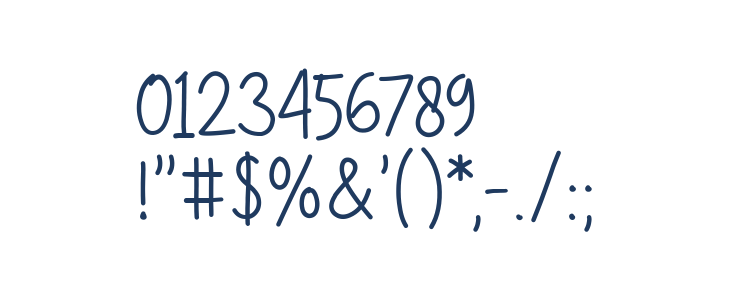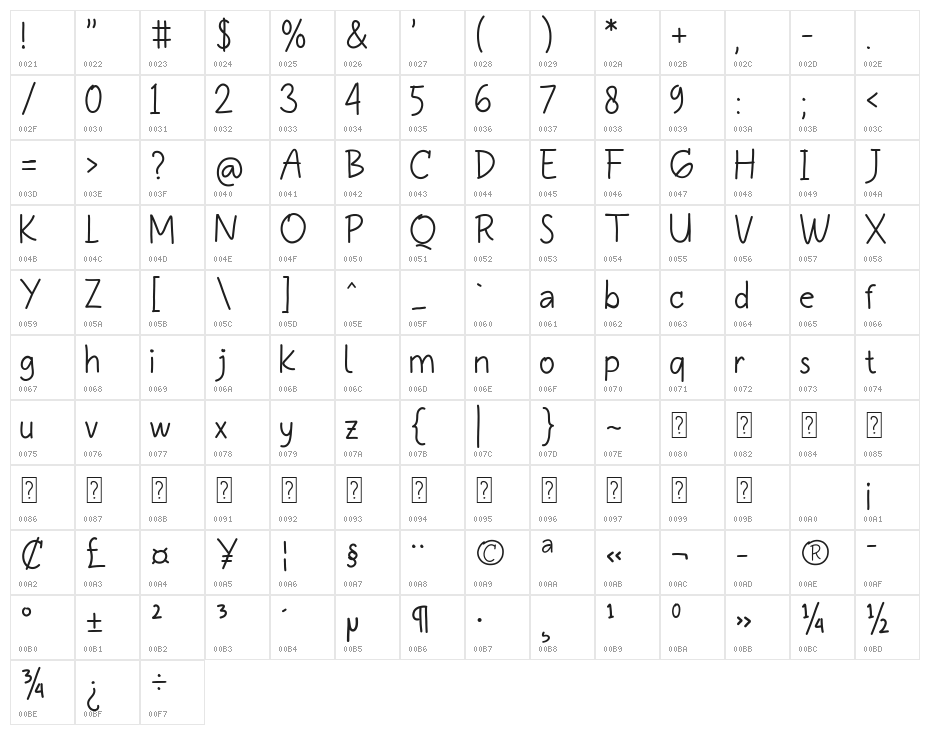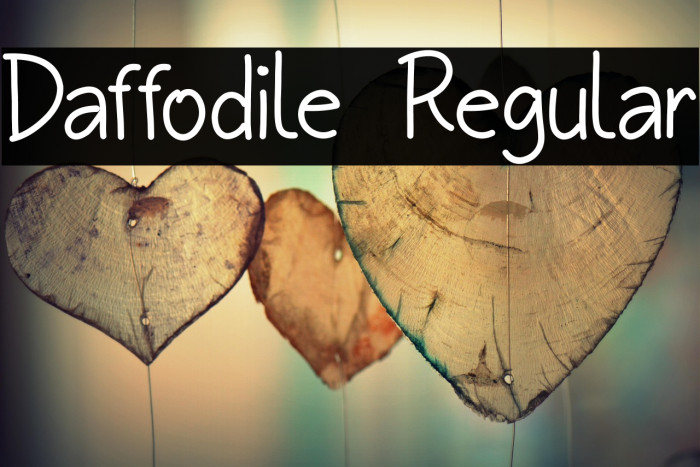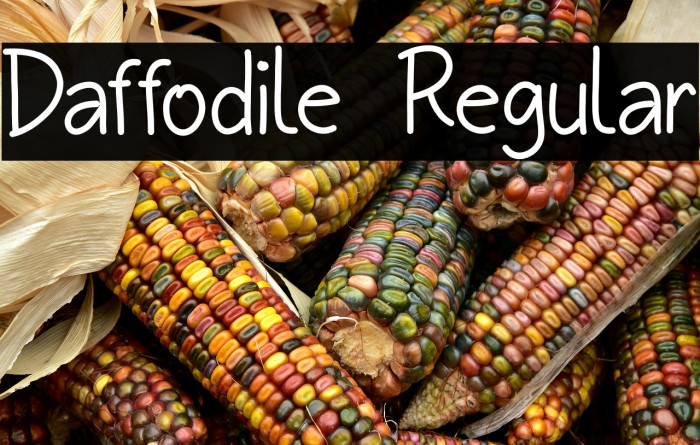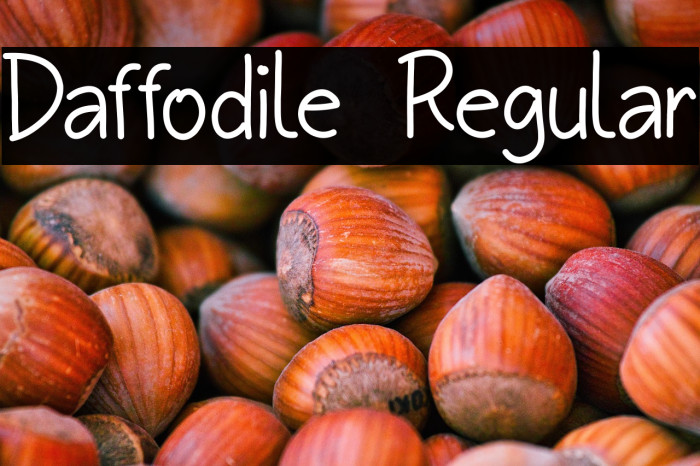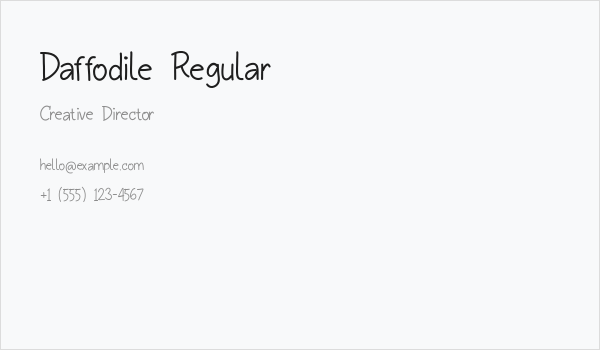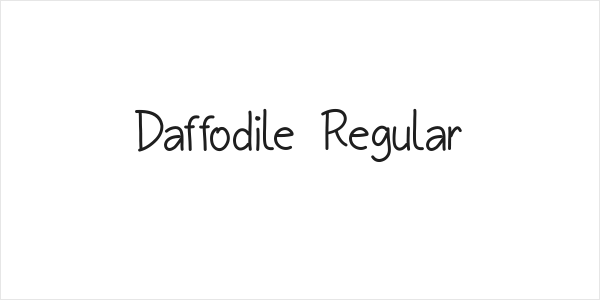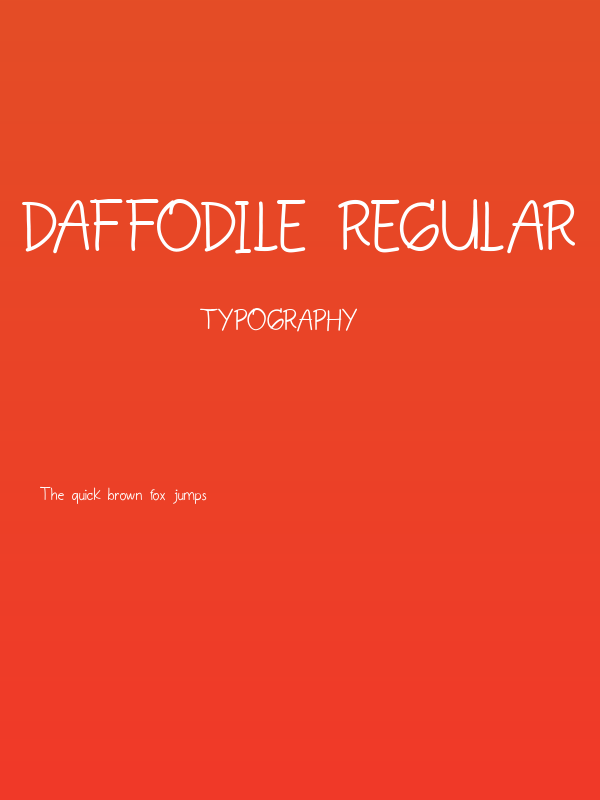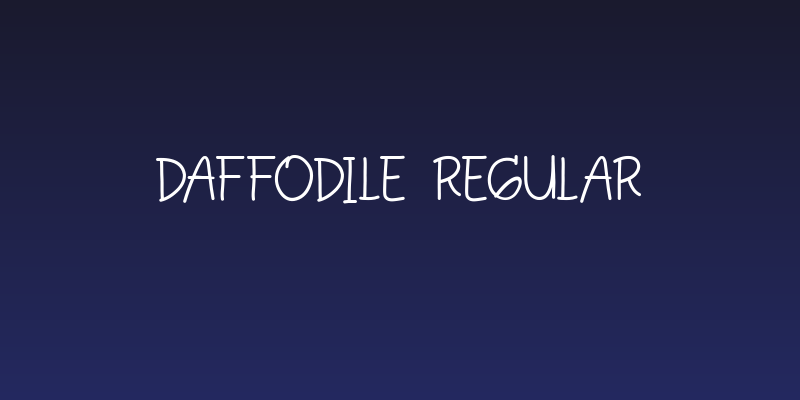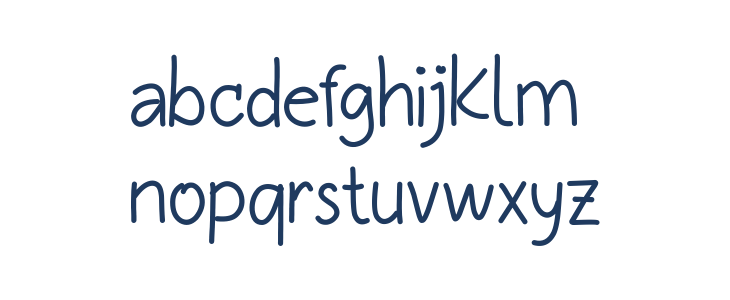
Daffodile Regular Font
Daffodile Regular Description
This font features a playful and casual handwritten style, characterized by its smooth curves and slightly irregular strokes. The letters are tall and narrow, giving it a unique and approachable appearance. The uppercase letters maintain a consistent height, while the lowercase letters have a friendly, rounded form. The numerals are clear and easy to read, matching the overall informal tone of the font. Special characters are well-integrated, maintaining the same whimsical style. This font is perfect for projects that require a personal touch, such as greeting cards, invitations, or playful branding.
Overall StyleCasual, Playful
Use CaseHeadlines, Logos, Invitations
Proposed ProjectsIdeal for greeting cards, invitations, playful branding, and personal projects.